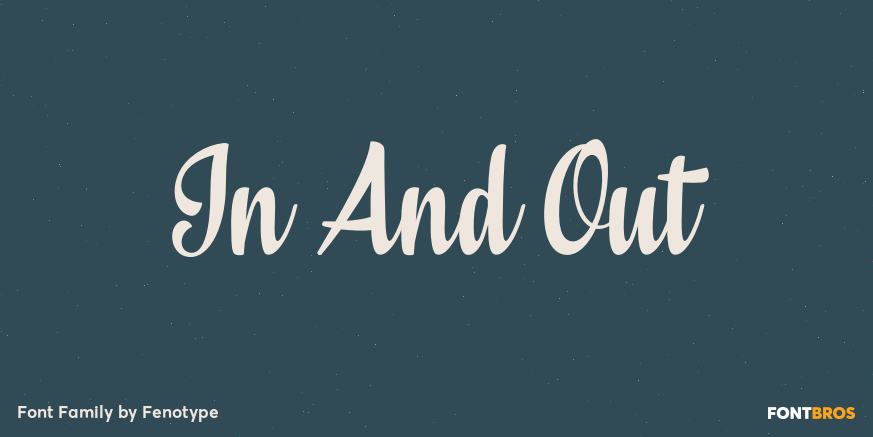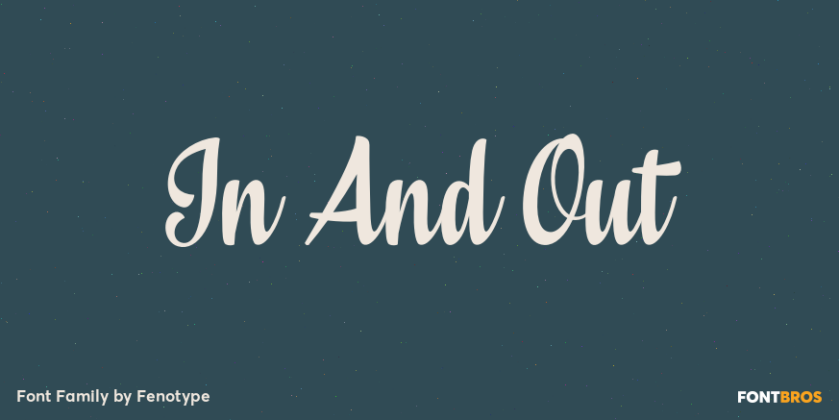
In And Out
About In And Out
In And Out is an elegant and diverse script family of three weights and an ornament set. In And Out is equipped with plenty of OpenType features: To activate the alternates turn on Swash, Contextual, Stylistic or Titling Alternates or Tabular or OldStyle…